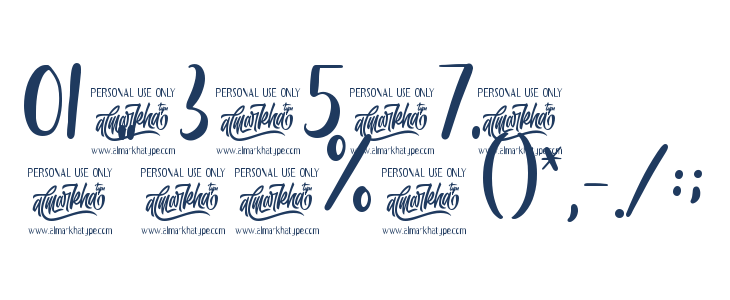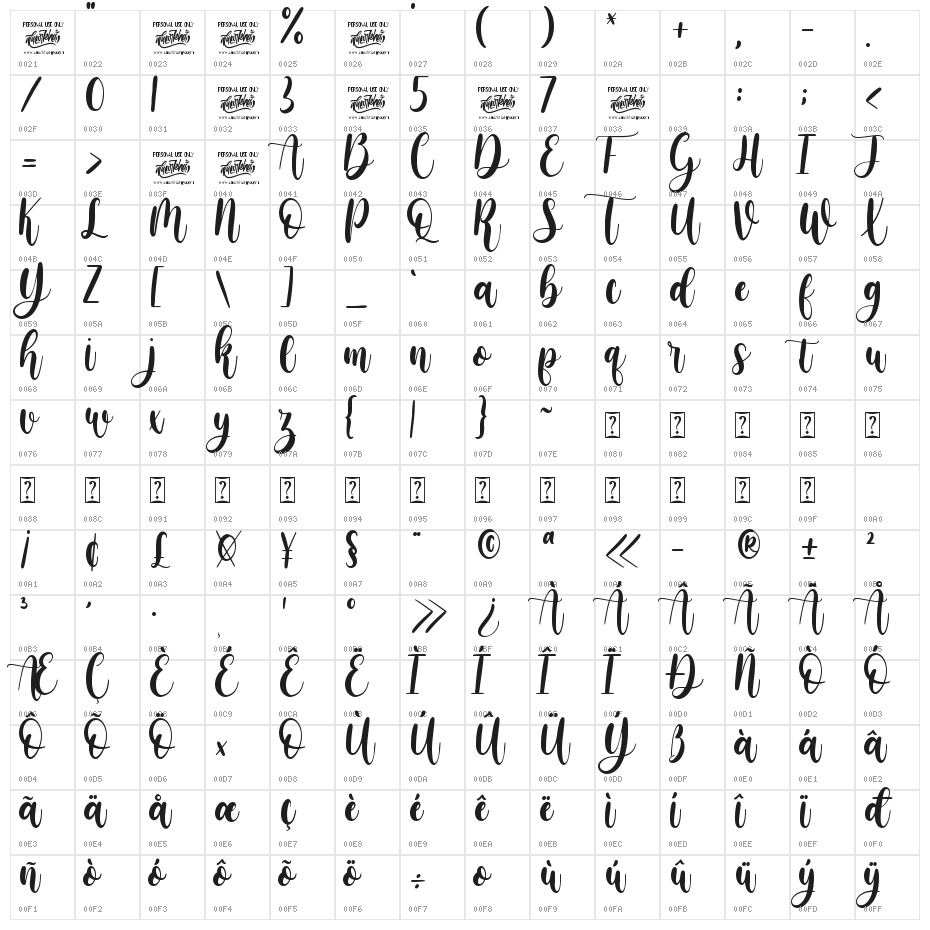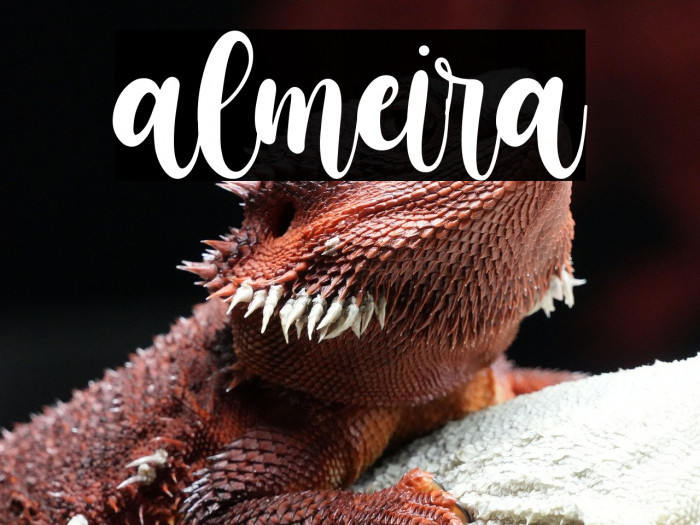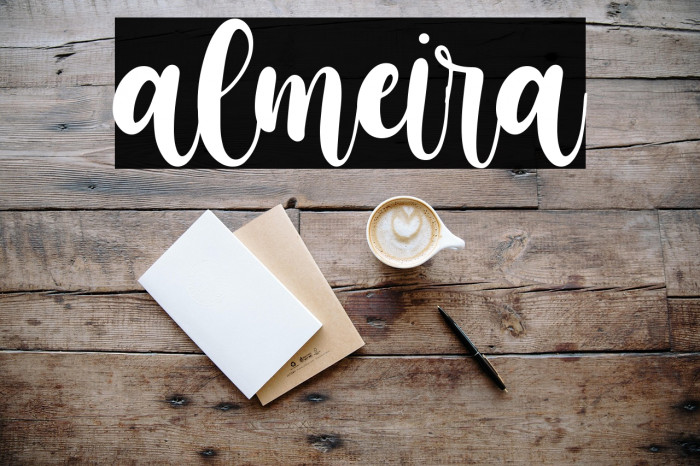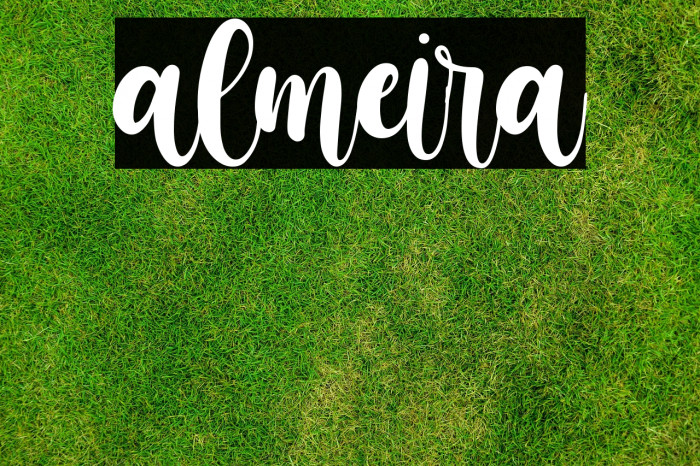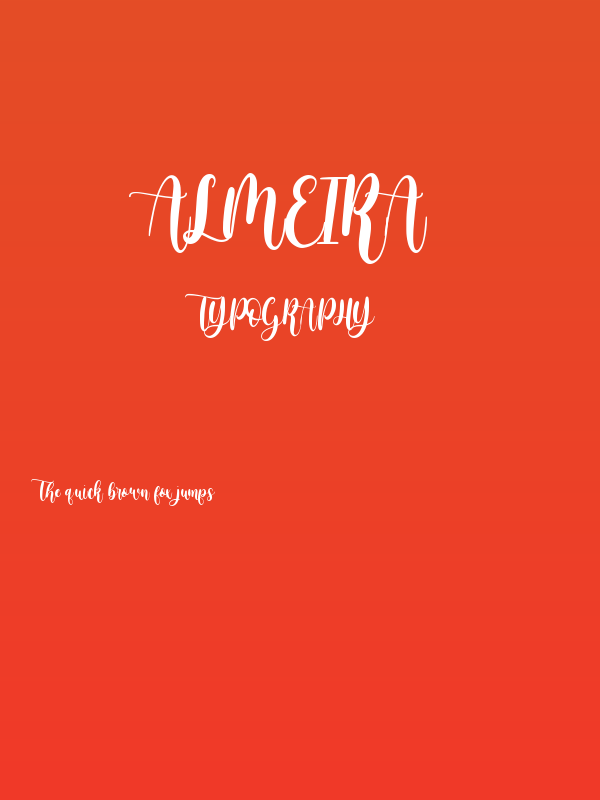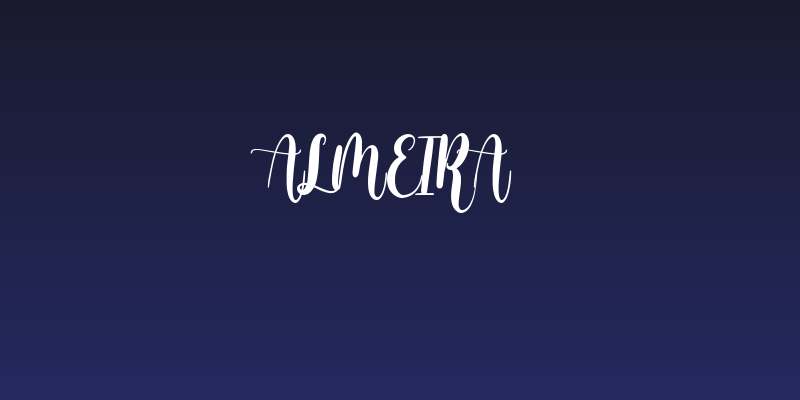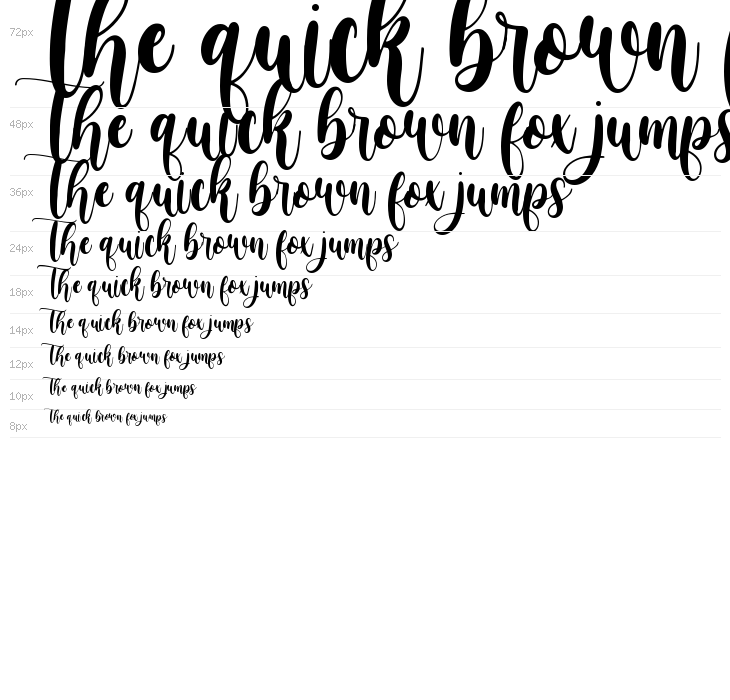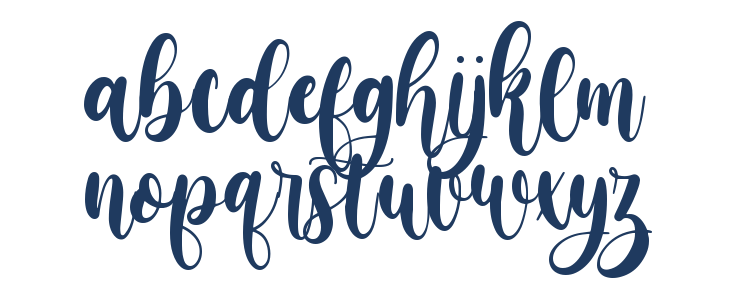
almeira Font
almeira Description
This font exhibits a flowing, cursive style with a modern twist, characterized by its elegant and artistic letterforms. The uppercase letters are bold and sweeping, with dramatic flourishes that add a sense of movement and grace. The lowercase letters maintain a consistent flow, with loops and curves that enhance its handwritten appearance. The numbers and special characters are equally expressive, maintaining the overall aesthetic of the font. This font's design is ideal for creating a personal and artistic touch in various design projects.
| Proposed Projects | Ideal for wedding invitations, greeting cards, branding, and logo design where a personal and artistic touch is desired. |